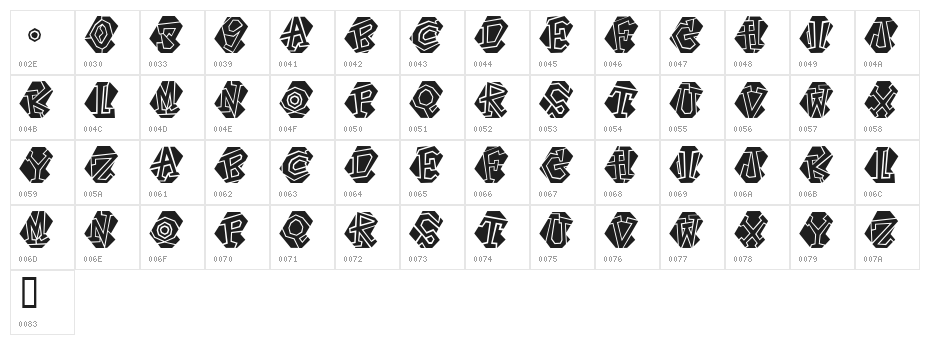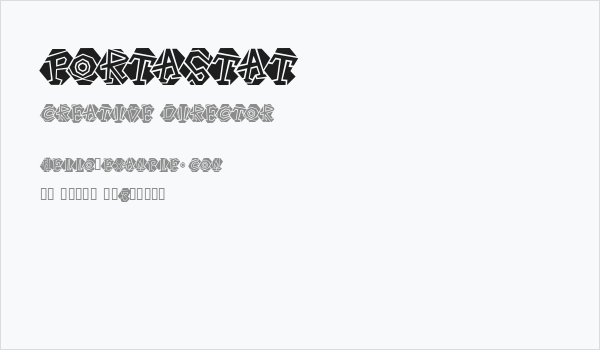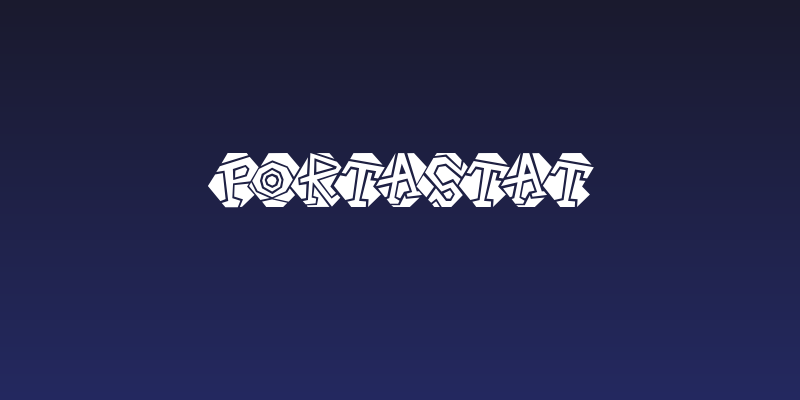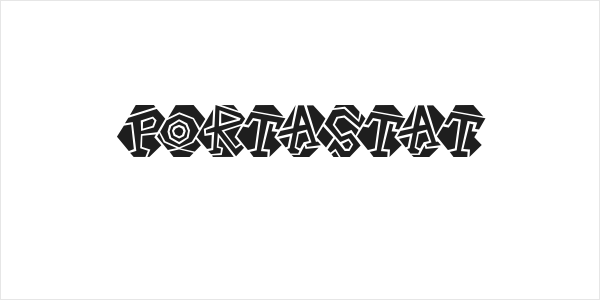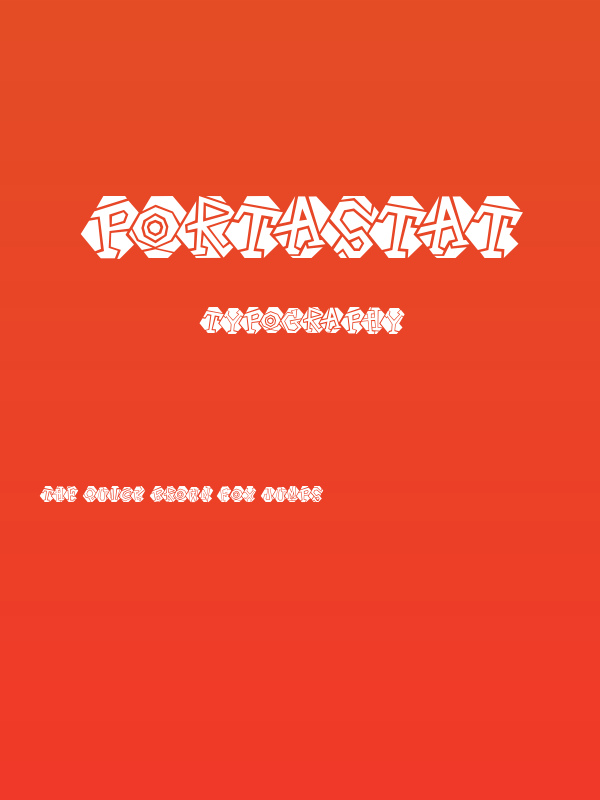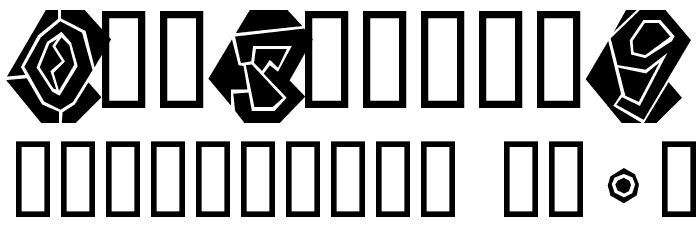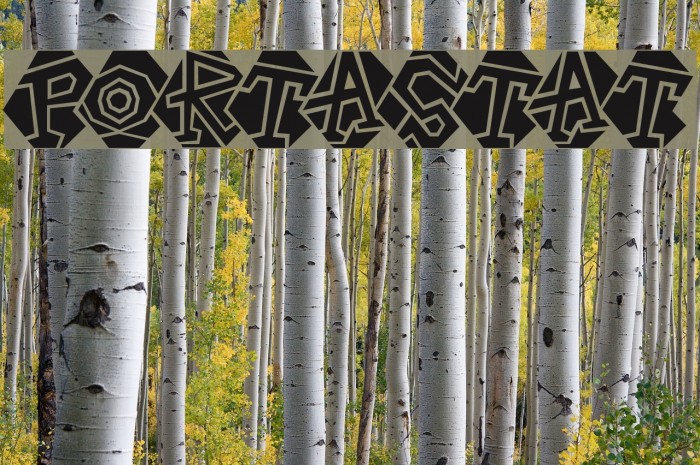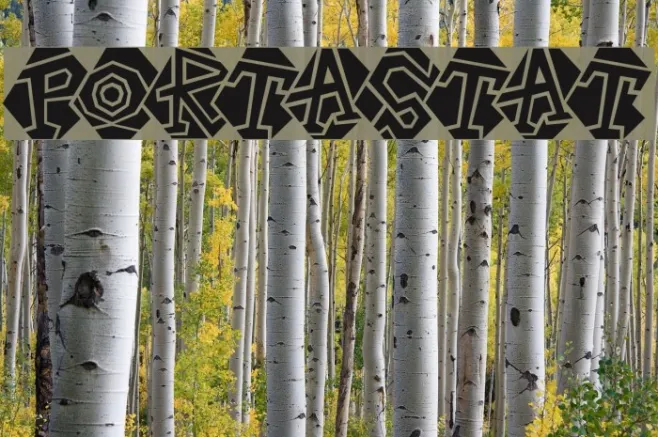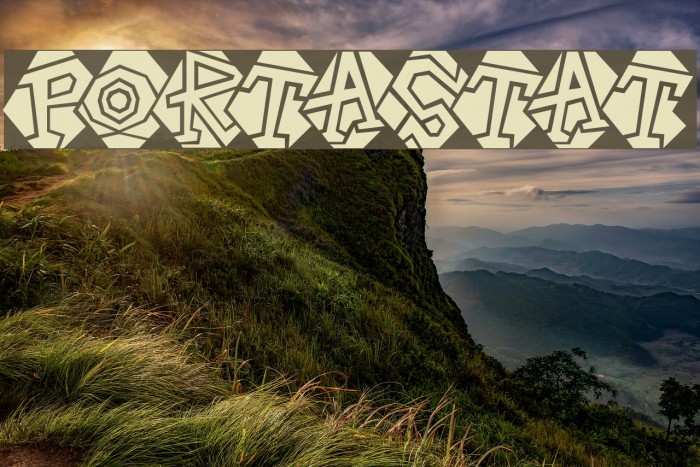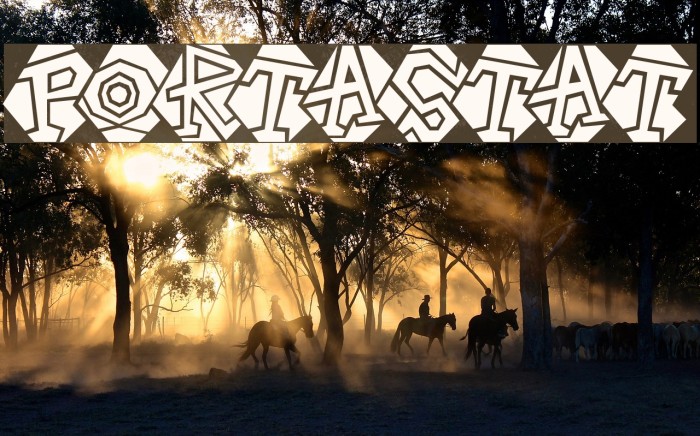
Portastat Font
Portastat Description
This font features a bold, geometric design with a strong emphasis on angular shapes and sharp edges. Each character is constructed with a combination of thick and thin lines, creating a high contrast that enhances its striking appearance. The letters are enclosed within hexagonal shapes, giving them a unique, futuristic feel. The uppercase and lowercase letters maintain a consistent style, while the numbers and special characters follow the same geometric theme. The overall design is highly decorative, making it ideal for projects that require a standout, modern aesthetic.
| Overall Style | Modern, Futuristic, Decorative |
| Proposed Projects | Ideal for futuristic branding, sci-fi themed posters, video game titles, and modern logo designs. |